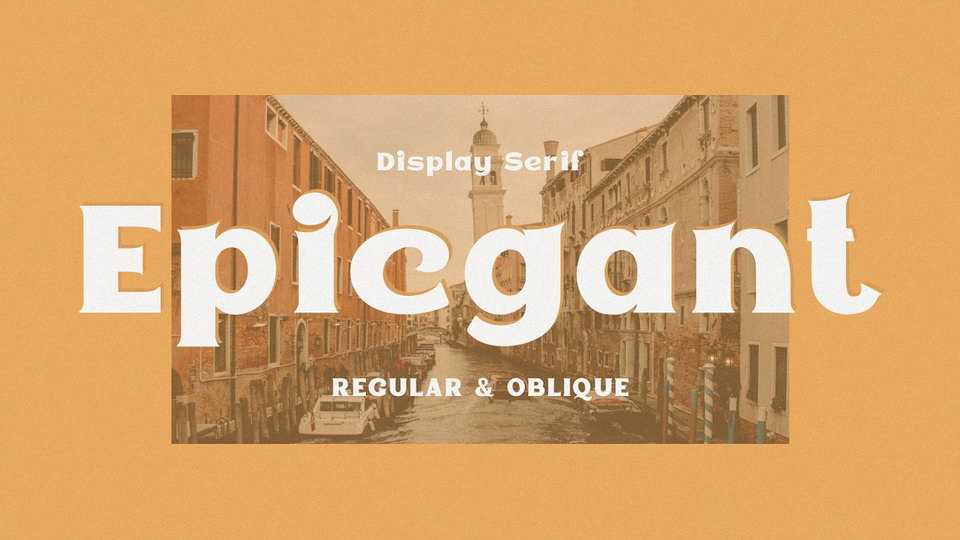
Download Epicgant font, an elegant vintage semi serif typeface. Its casual charm makes Epicgant appear wonderfully down-to-earth, readable and, ultimately, incredibly versatile.
Designer: Viaction Type Co